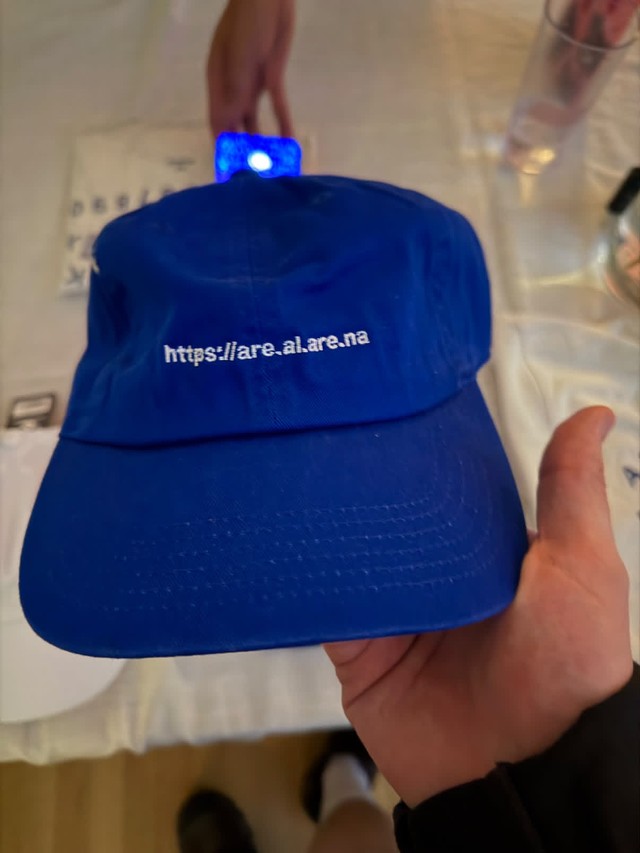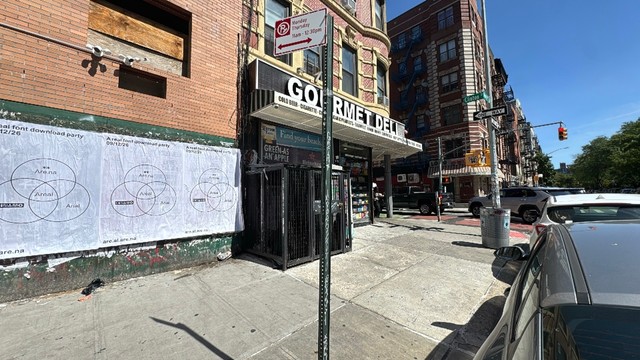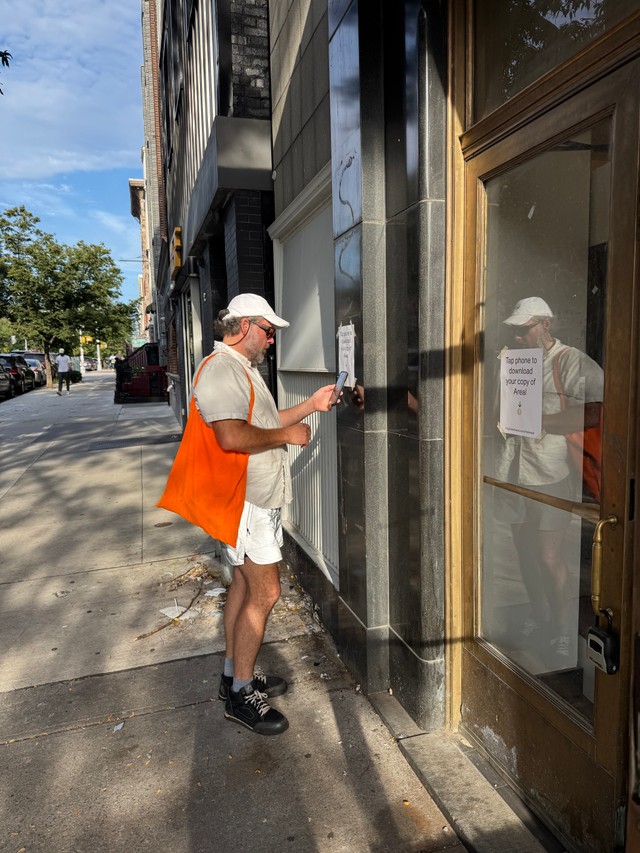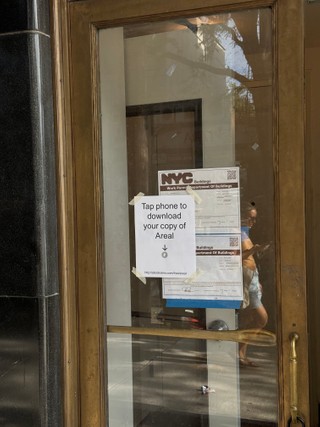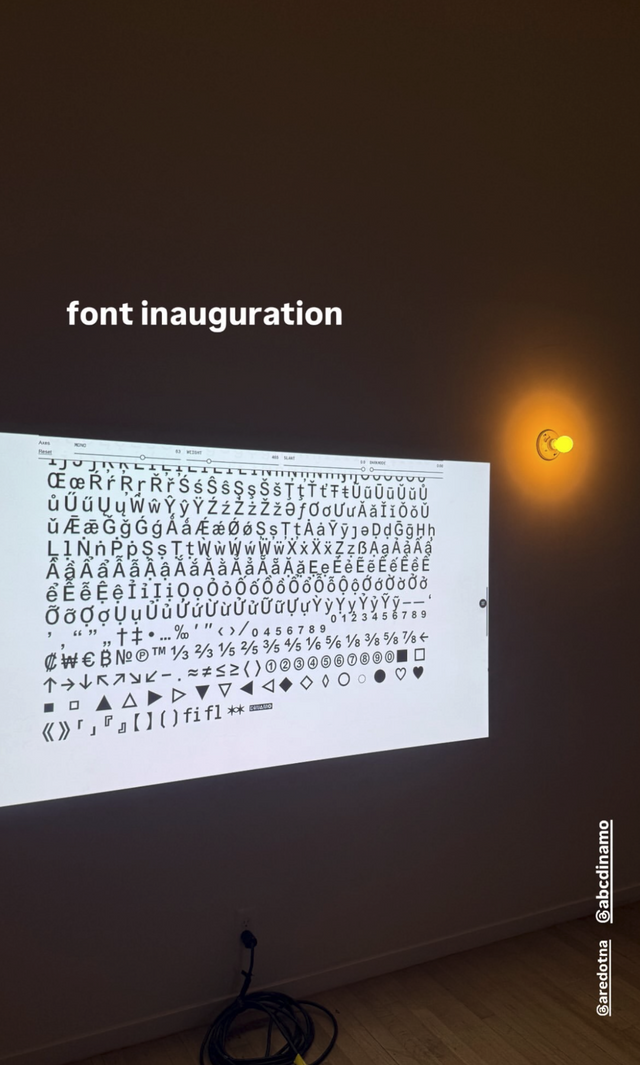
The typeface we initially designed just for Are.na enters its second chapter —
We just want to let you know that now you can download Areal for free!!
As some of you know, we initially designed Areal as a bespoke typeface for Are.na, to replace Arial, the typeface they had been using for almost 15 years. You can read more about our good intentions and design process here.
The response to this project was overwhelming, and many people asked for access to Areal early on, wanting to use it in their own projects. And we love the idea of Areal’s journey continuing in the hands of the community. When thinking about how to publish it, releasing it as a free font, free to download and free for everybody to use, felt like the only right way, given the history and soul of the project. So that’s whats happening today.
To celebrate the release, we put together a real (🙄) font download party in New York: a casual, bring-your-own-phone gathering of font loving spirits.
The party took place at Index in Greenpoint, Brooklyn. People could just take their phones (in case they brought them), scan the chip and download the font directly at the spot. There was also a self-appointed font whisperer who spent the evening explaining the difference between spacing and kerning to everyone. Interesting guy.
He said that the download process got him “weirdly emotional”
For this project to come into existence, a whole bunch of stars really had to align. It’s serious, silly, necessary, unnecessary, all at the same time. We know it's beautiful? And we feel blessed to be able to make space for collaborations like this one from time to time.